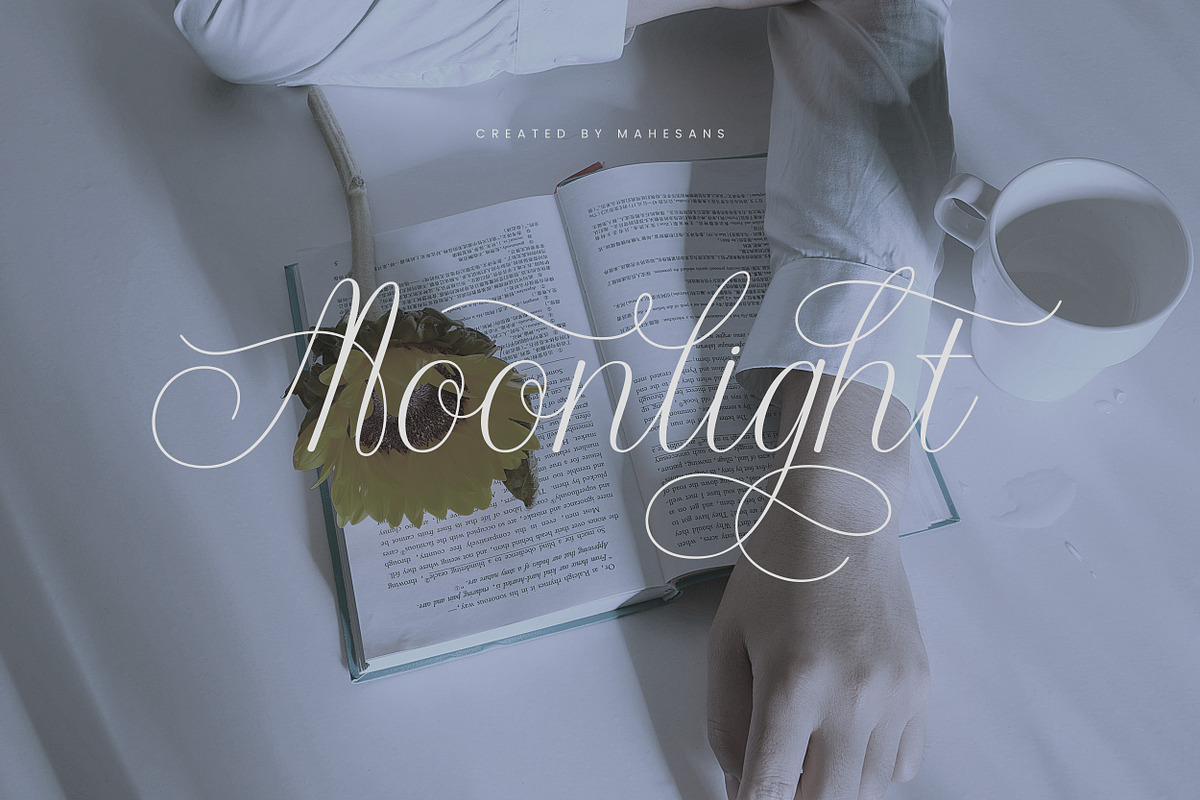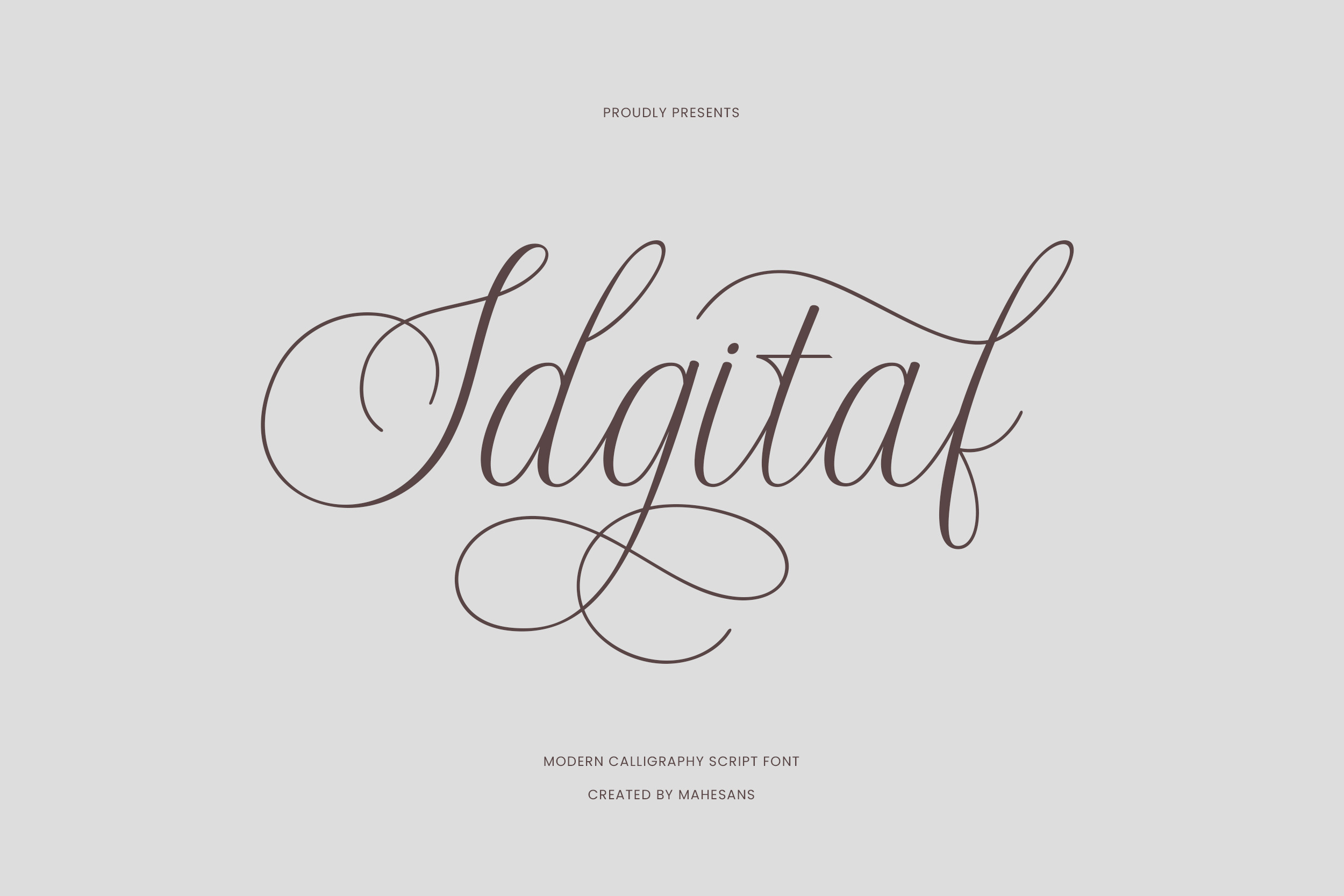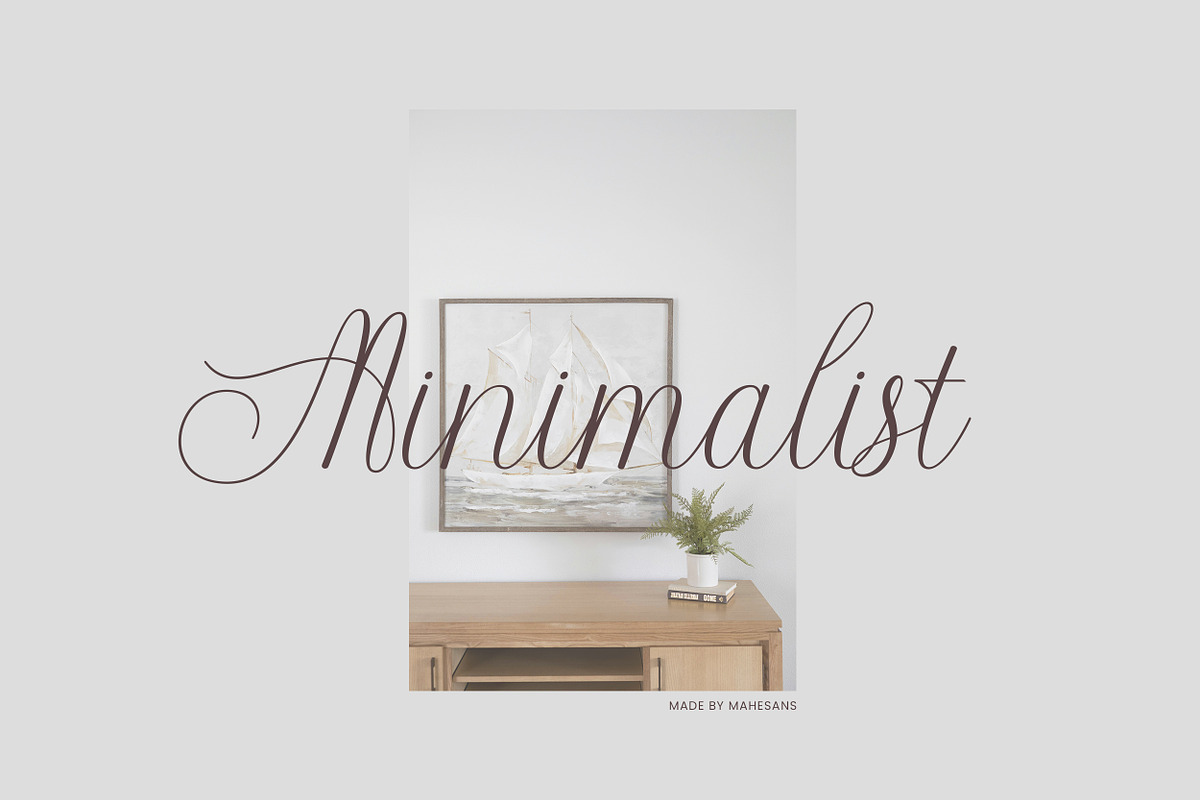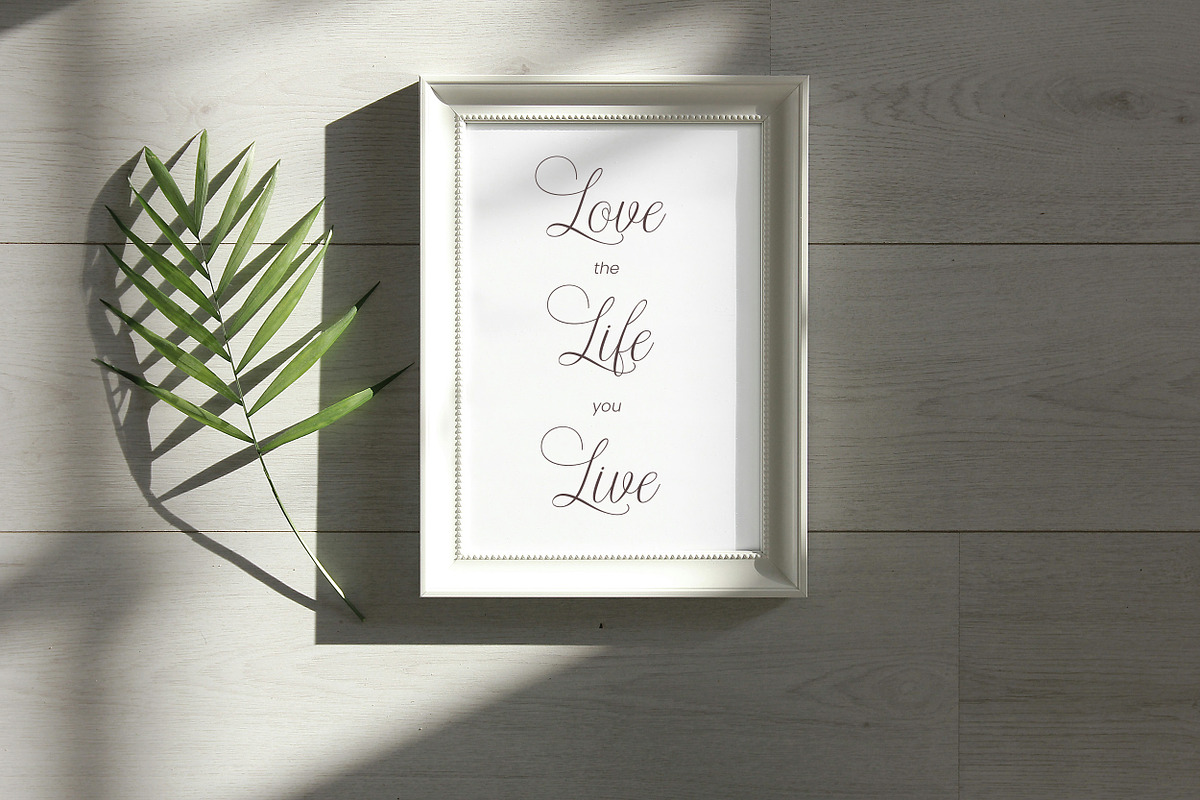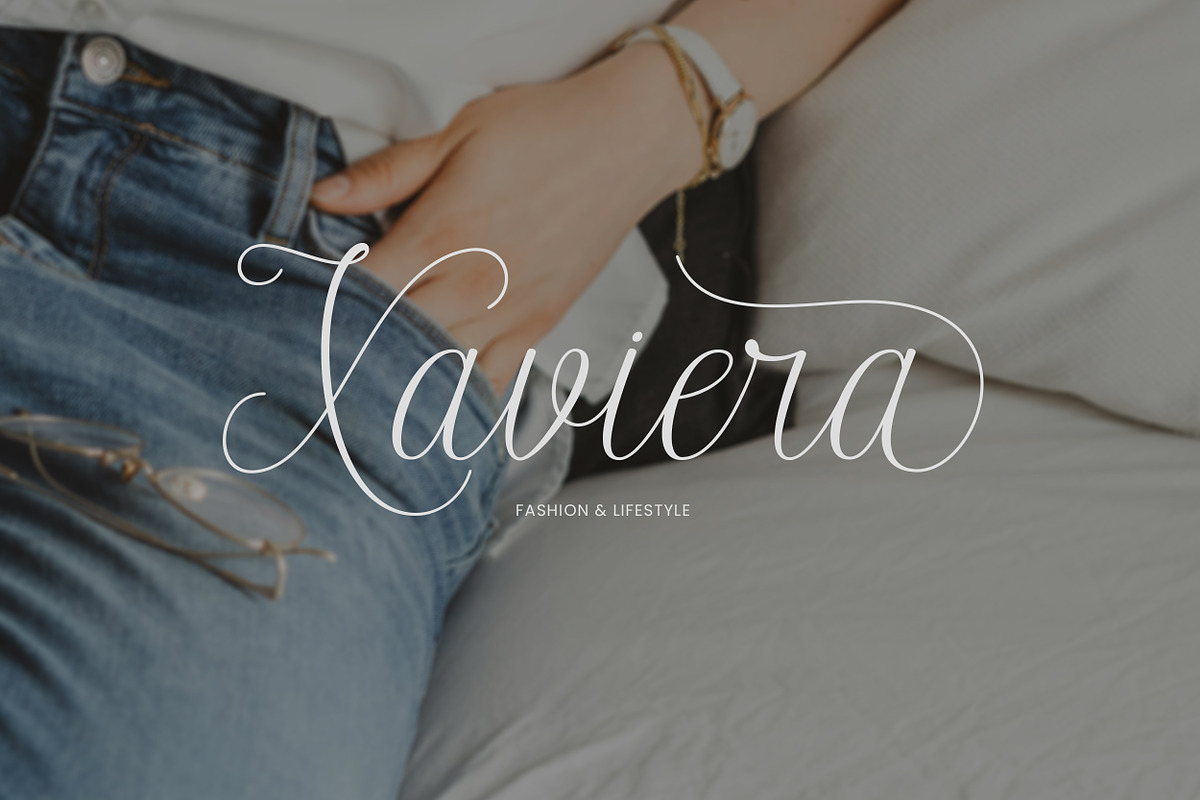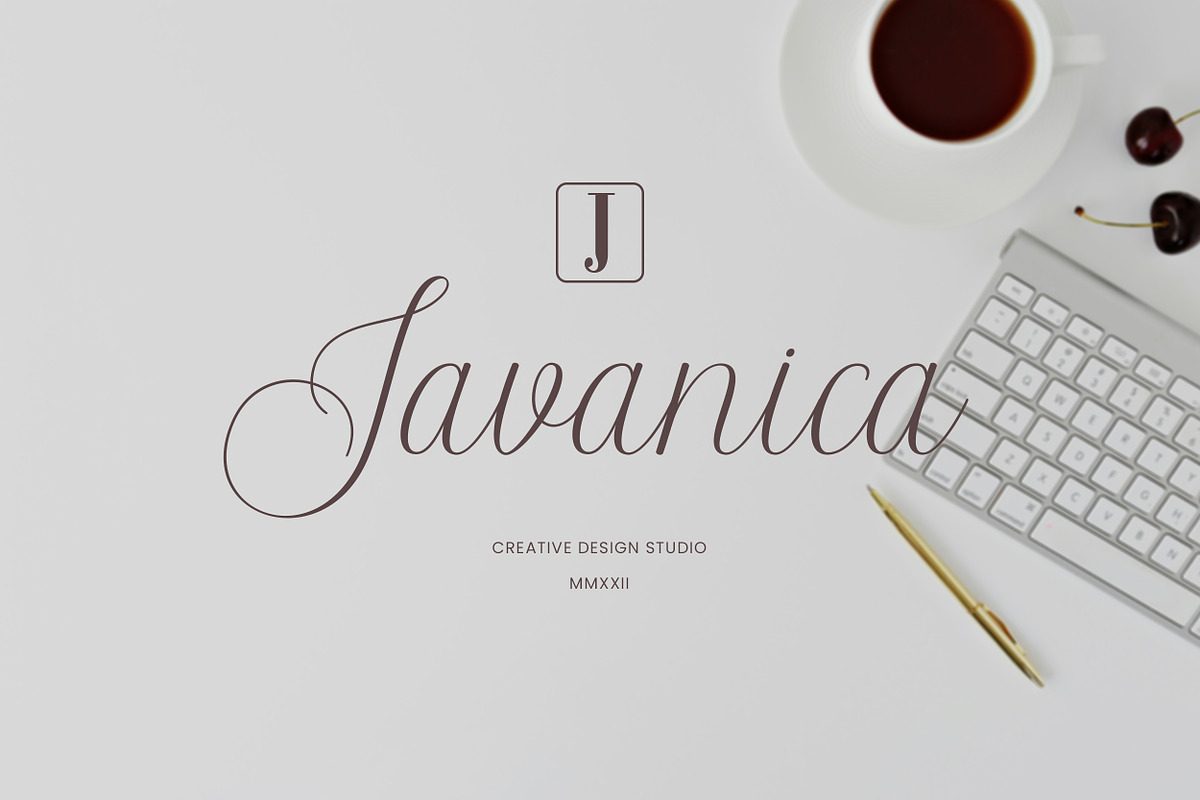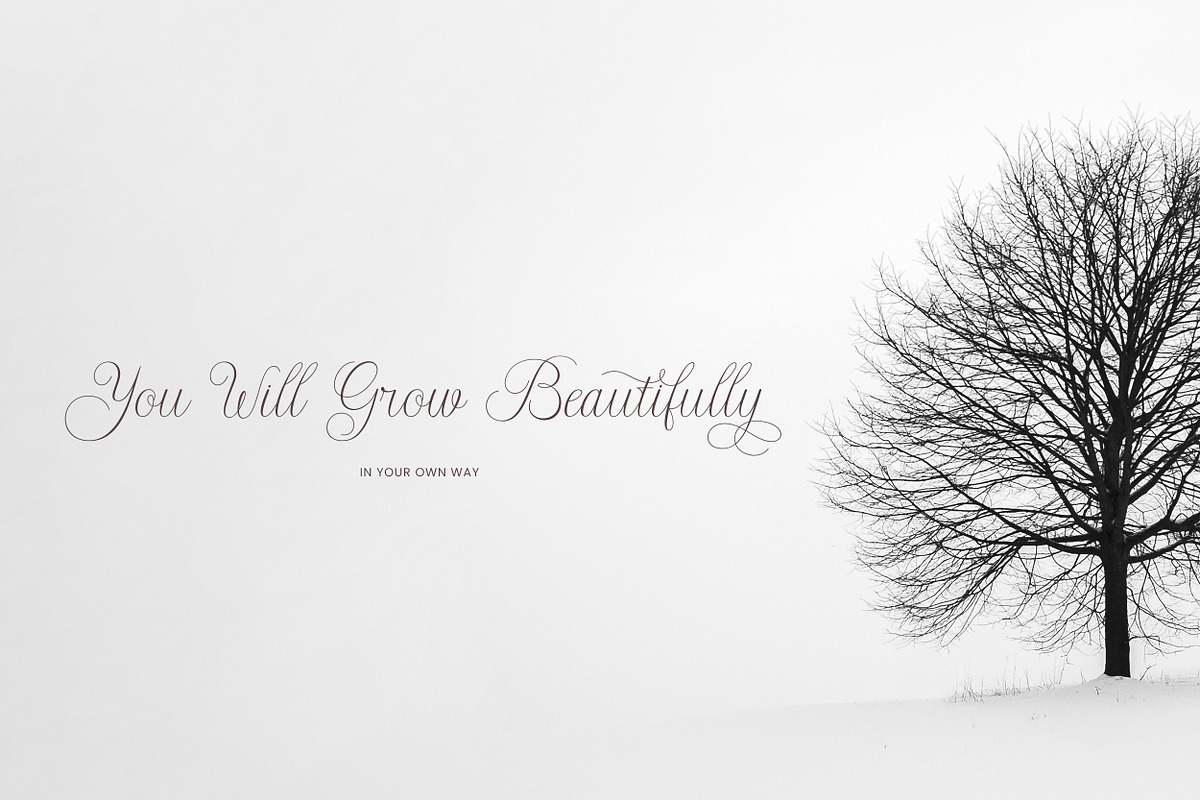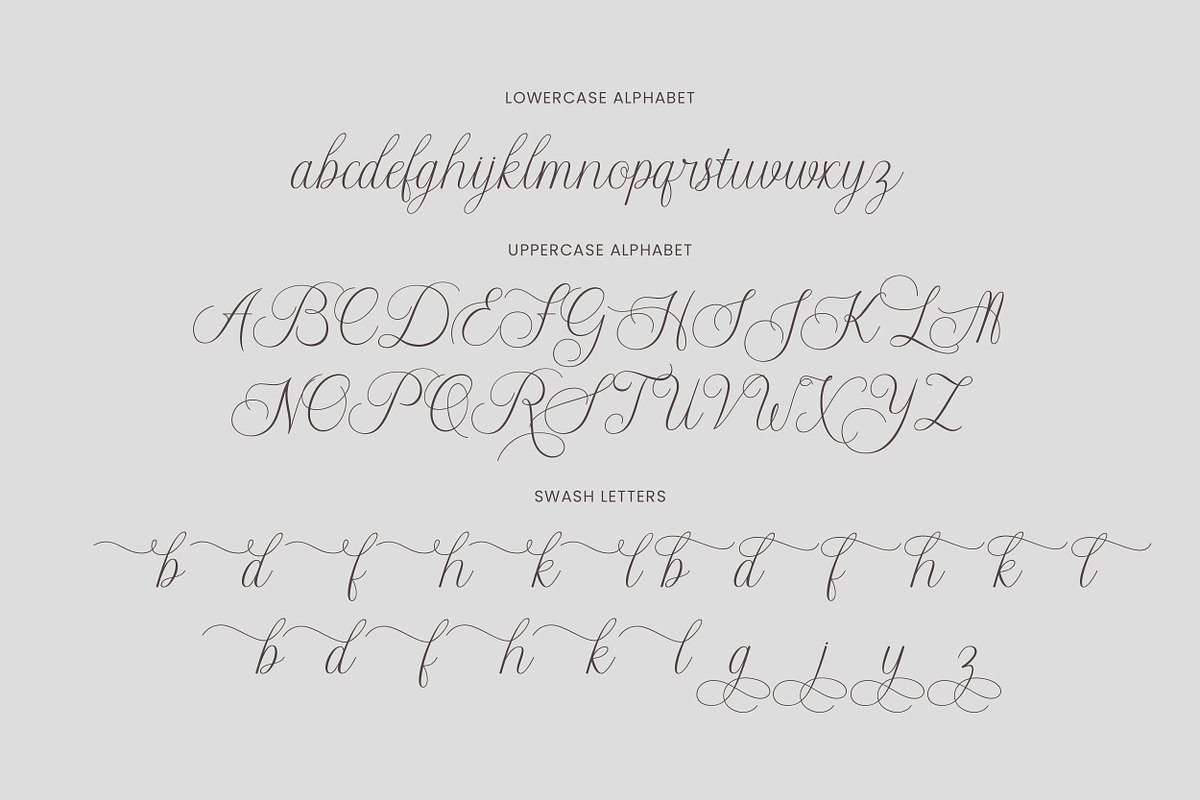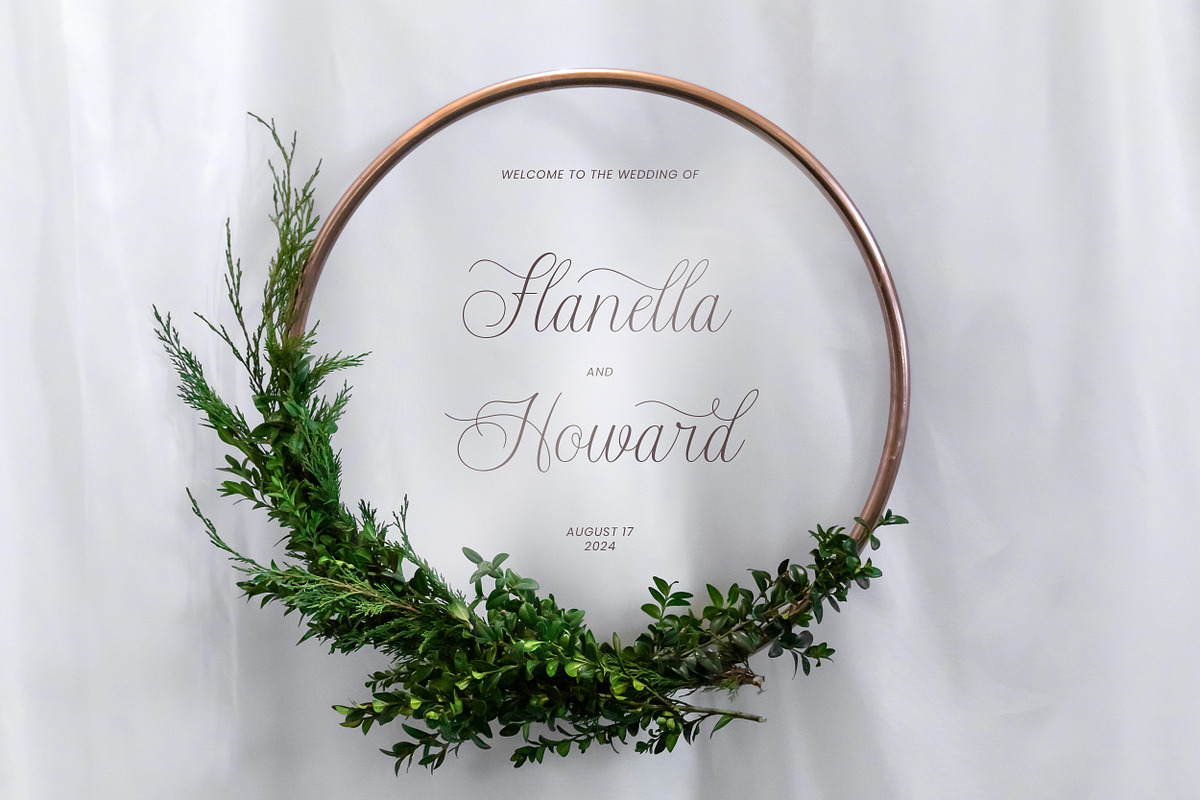
Idgitaf | Calligraphy Script Font
Idgital is a modern calligraphy script font that brings elegance and fluidity to your designs. With graceful strokes, flowing letterforms, and luxurious swashes, Idgital captures the essence of handcrafted calligraphy with a contemporary twist. Its smooth curves and balanced rhythm make it a perfect choice for projects that require a touch of sophistication and romance.
This font is ideal for wedding invitations, branding, social media graphics, product packaging, and high-end stationery. The artistic swirls and stylish ligatures ensure each word you type looks thoughtfully composed and visually captivating.